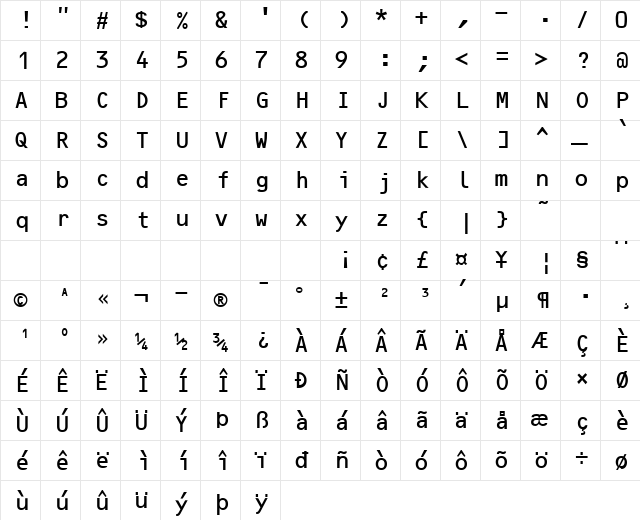
Optical B Normal
Design Context for Optical B Typeface
Optical B is a composed and adaptable typeface that performs quietly and consistently across a wide range of design contexts.